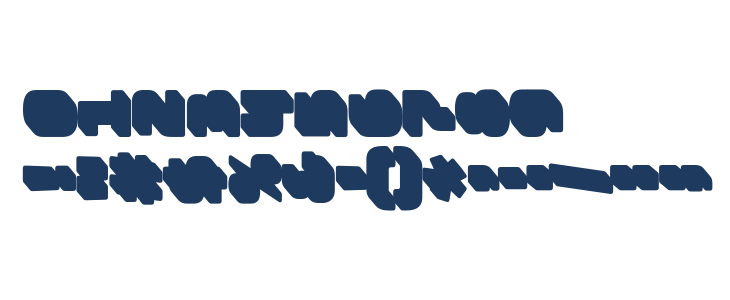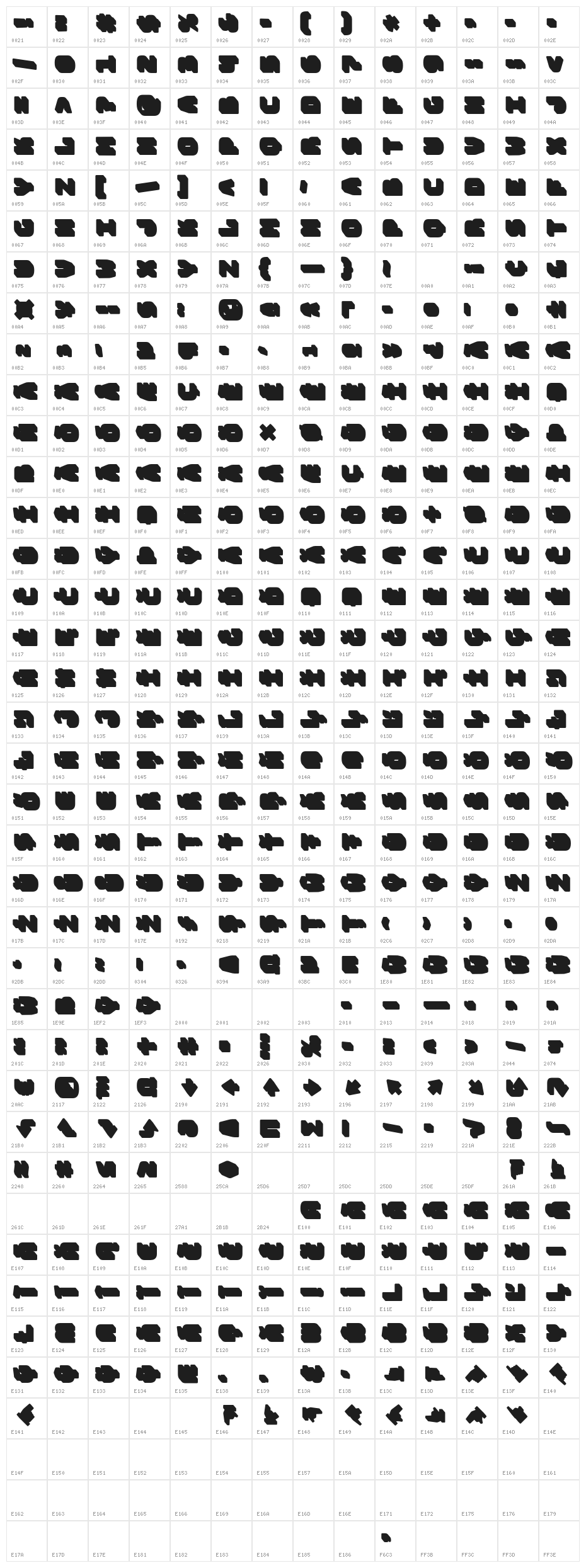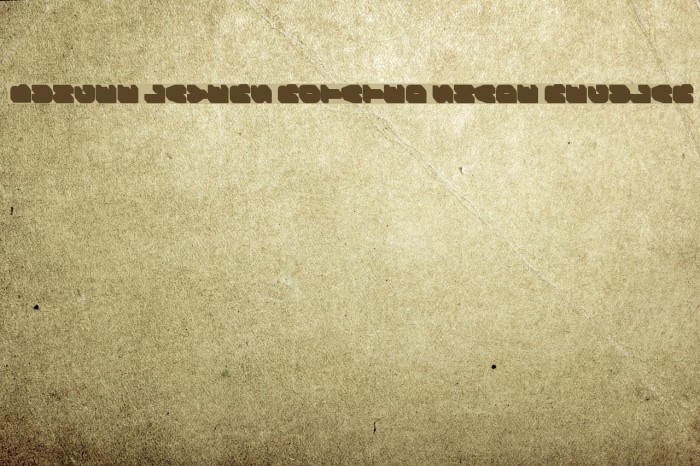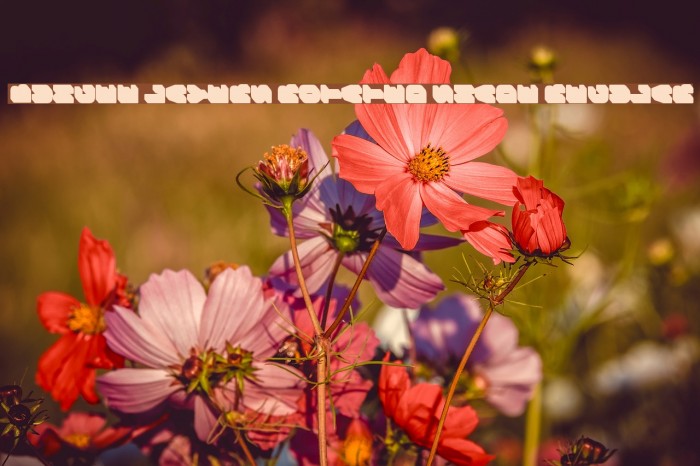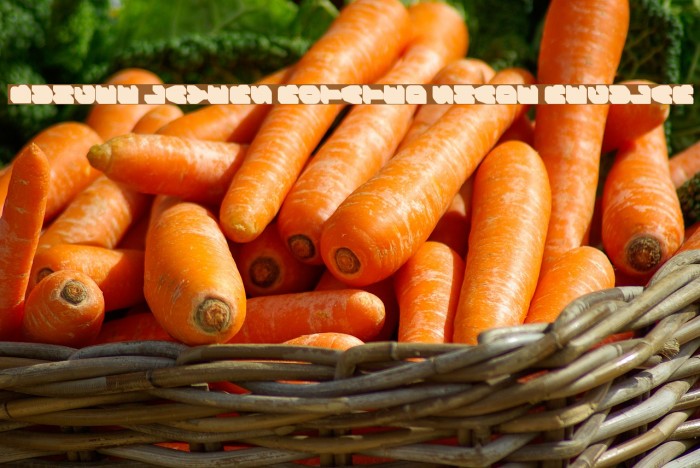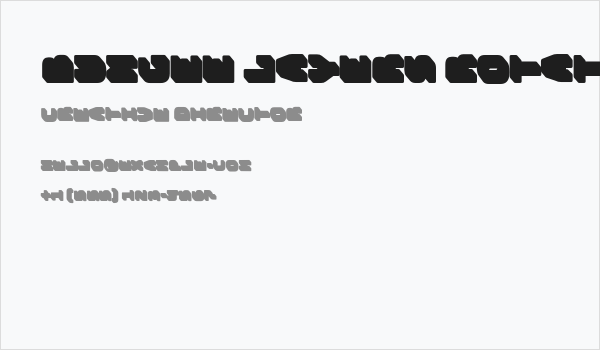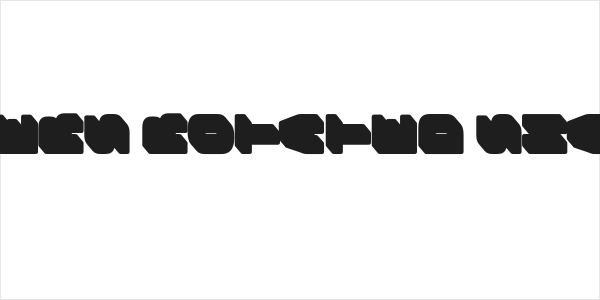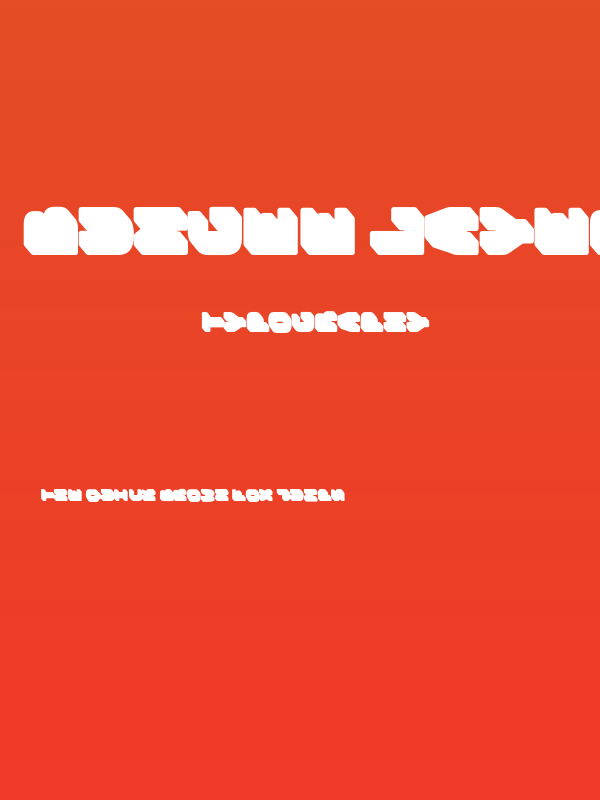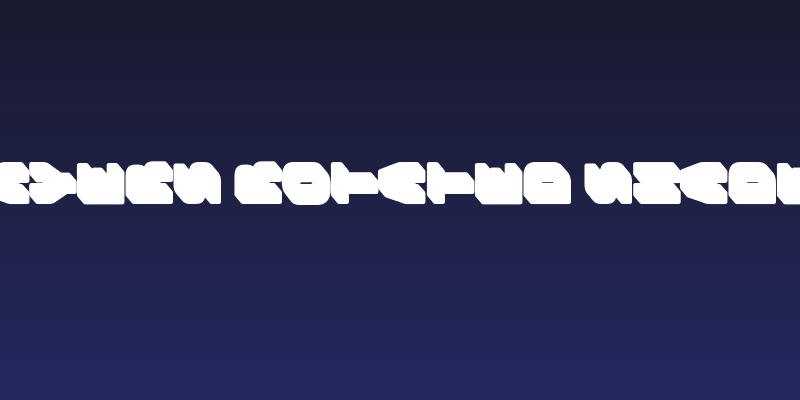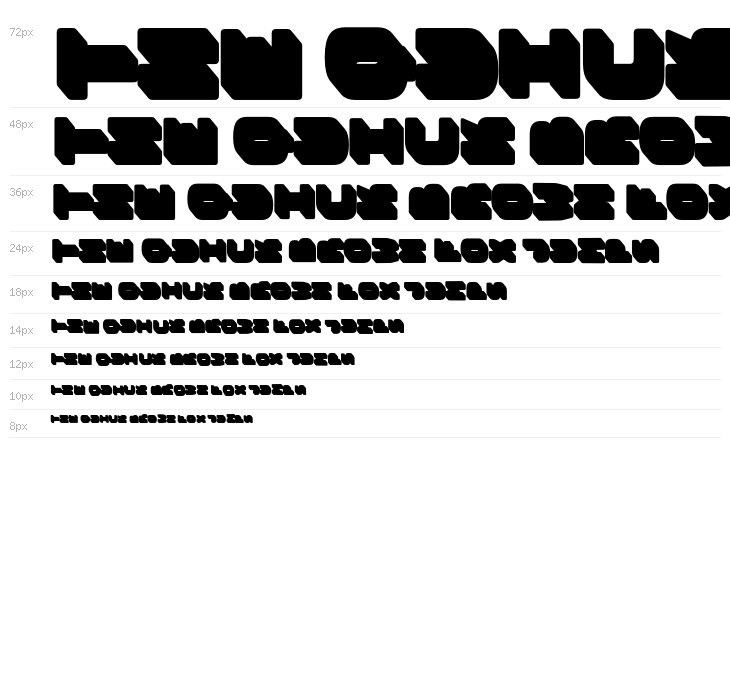
Bungee Layers Rotated Shade Regular Font
Bungee Layers Rotated Shade Regular Description
This font features a bold, geometric style with a distinct three-dimensional effect. The letters are heavily stylized, with thick strokes and a unique shadowing that gives them a rotated, layered appearance. The characters are wide and blocky, creating a strong visual impact. The font's design is playful yet structured, making it suitable for eye-catching displays. Its boldness and unique shading make it stand out, while the consistent thickness of the strokes provides a sense of uniformity. The font's overall aesthetic is modern and dynamic, with a touch of retro influence.
| Proposed Projects | Ideal for posters, signage, branding, and any project requiring a striking, modern typeface. |